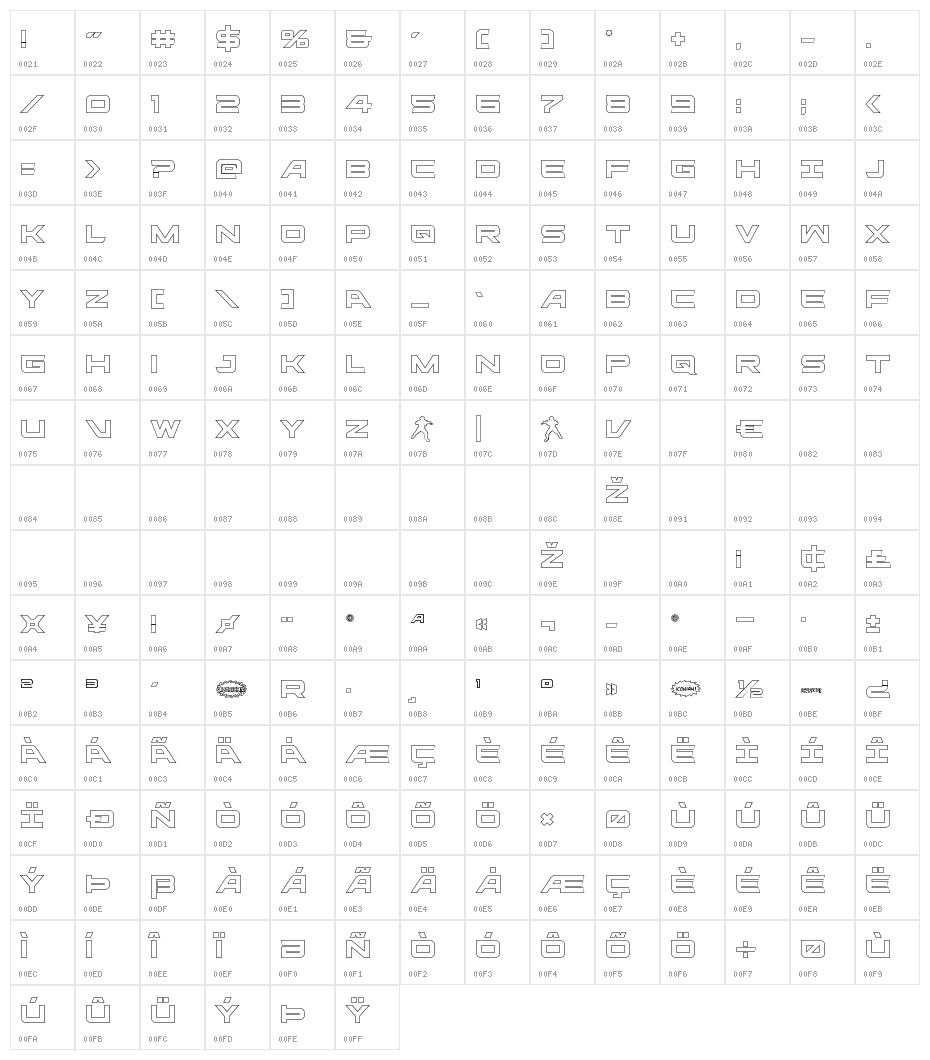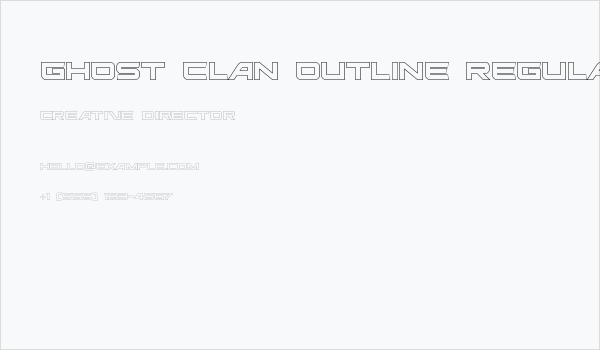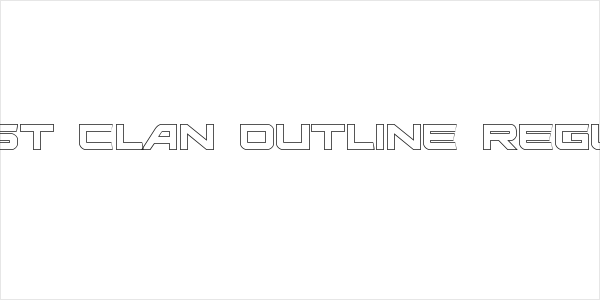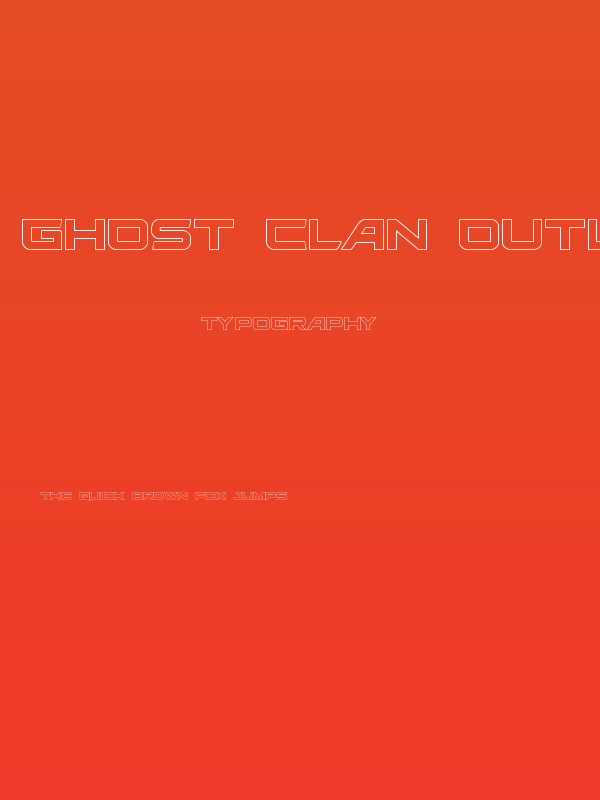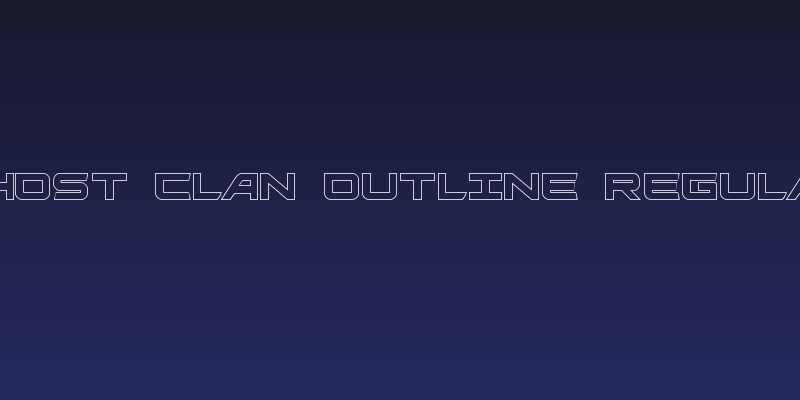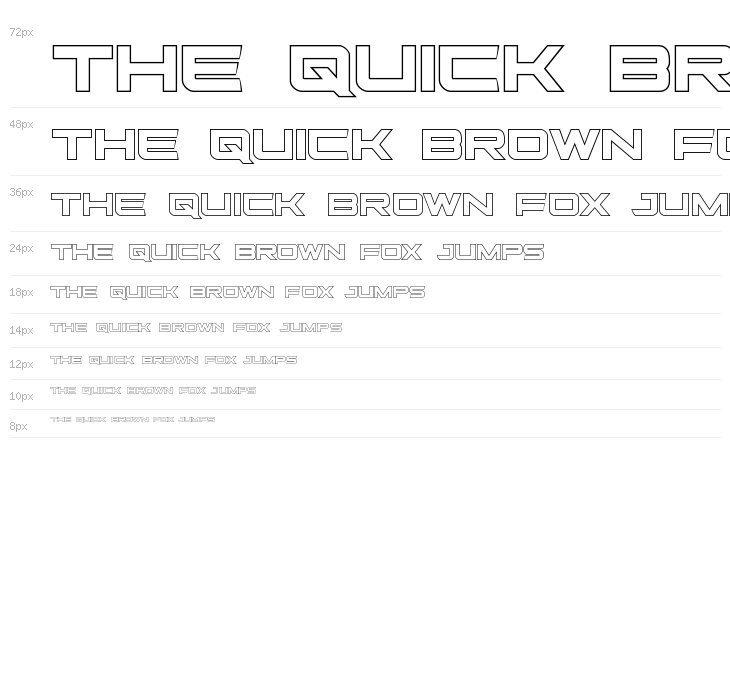
Ghost Clan Outline Regular Font
Ghost Clan Outline Regular Description
This font features a modern, geometric outline style with a futuristic aesthetic. Each character is crafted with precision, showcasing clean lines and sharp angles that create a sense of structure and clarity. The uppercase and lowercase letters maintain a consistent height, while the numerals and special characters complement the overall design. The outline nature of the font gives it a unique, airy feel, making it stand out in digital and print media. Its distinct appearance is ideal for projects that require a bold, eye-catching typeface.
| Proposed Projects | Ideal for tech-related branding, futuristic posters, video game titles, and digital interfaces. |